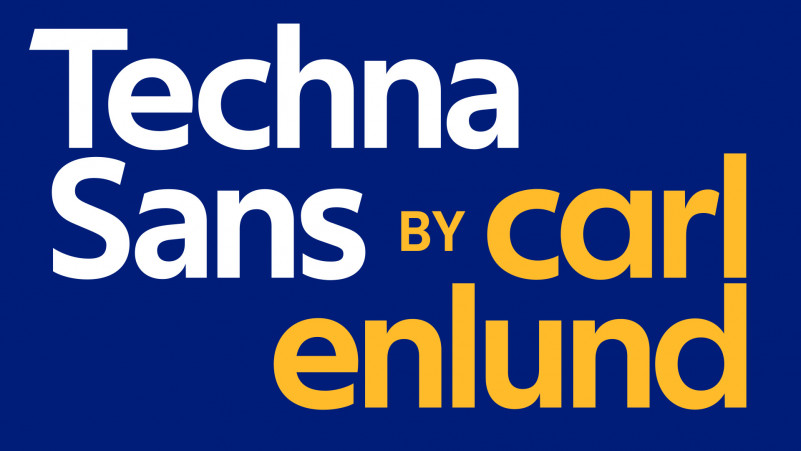
Techna Sans Serif
Thank you for looking this font. Introducing Techna Sans Serif Font! This is a sans serif font family inspired by simple geometric structures. It is most suited as a headline font for editorials, packaging design and websites. It’s is a bold, geometric sans-serif typeface. Its sharp stroke endings give the typeface an authentic and modern look, making it perfect for branding and headlines. The typeface is tightly spaced, intended mainly for big text, but with generous spacing it works equally well in smaller sizes.